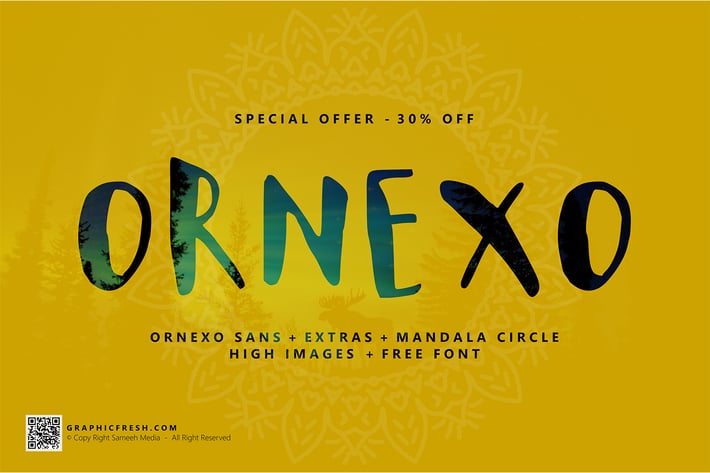
Ornexo Typeface
Ornexo Typeface Font
Welcome to the Sameeh Media. We create the fonts that help you make a great design for your work. You can use this font for branding projects, labels, apparel design, typography pieces and more. Ornexo Font, designed to combine perfectly and allow you to create stunning logo, resume, branding quickly and easily.